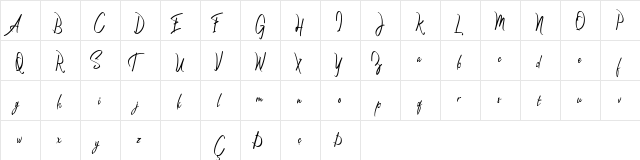
Kingsoil Script Regular
Design Context for Kingsoil Script Typeface
Kingsoil Script flows with the natural rhythm of handwritten lettering, making it ideal for designs that call for warmth and personal expression.